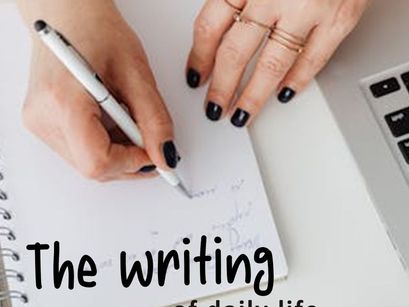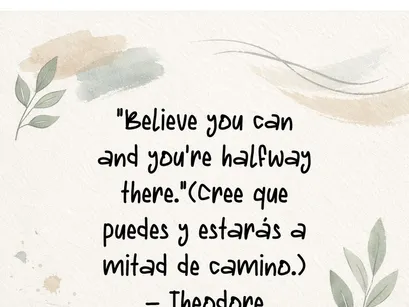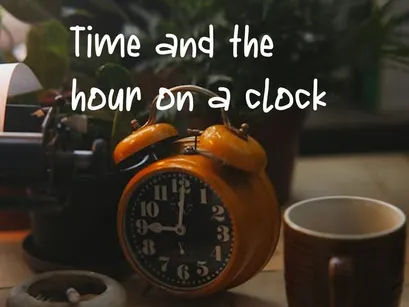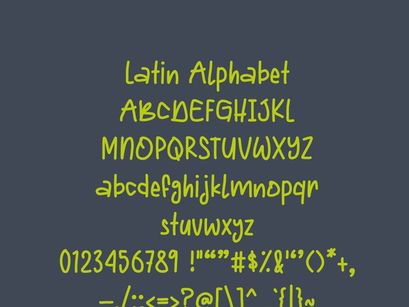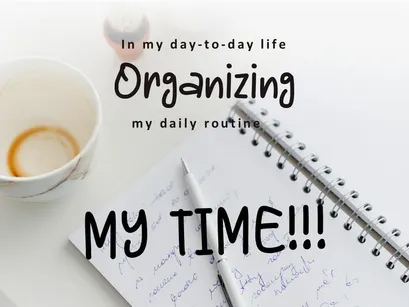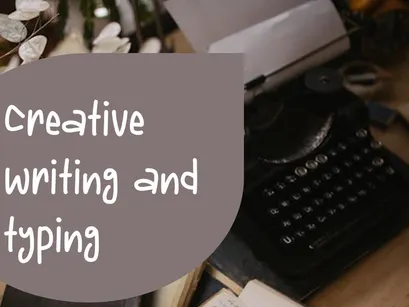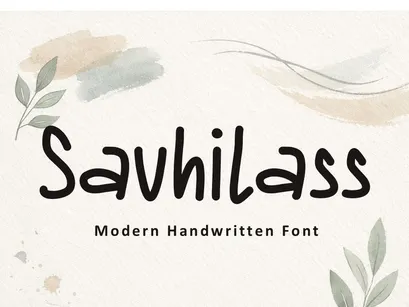
Savhilass — Modern Handwritten Font
Savhilass is a modern handwritten font with soft, rounded strokes that convey clarity, energy, and approachability. Designed for creative projects, planners, branding, and digital content, it combines naturalness with professional legibility.
• Full coverage of Latin characters and accents.
• Ideal for titles, inspirational quotes, and organizational projects.
Perfect for those seeking a modern, clean, and optimistic handwritten font.